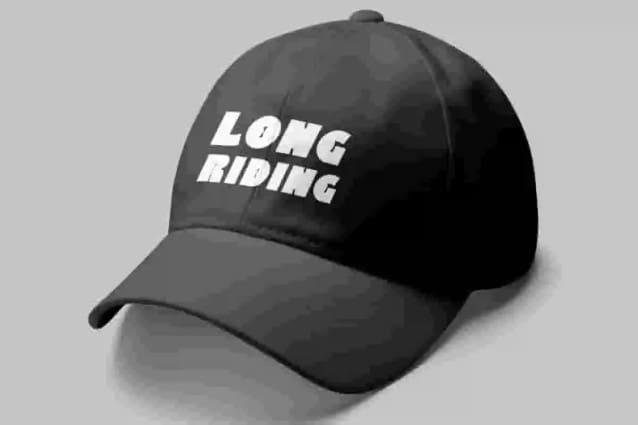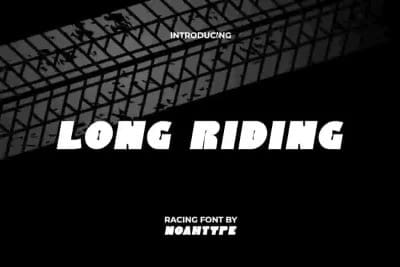
Long Riding Font
Long Riding Font is a unique racing and sporty style display font by NoahType. This font has thick characters with a few uniquely shaped gaps in certain letters so that its appearance can attract attention. This font will be suitable for a lot of projects, such as custom design, stationery, label, poster, signage, catalog, cover, quotes, website, and more!
Long Riding Font includes full set of Uppercase and Lowercase Basic Characters, Numerals and Punctuation. This awesome font will make you believe it is the perfect choice for many industries, such as sports, racing, game, automotive, fashion, advertisement, café, event organizer, printing, publishing, etc.